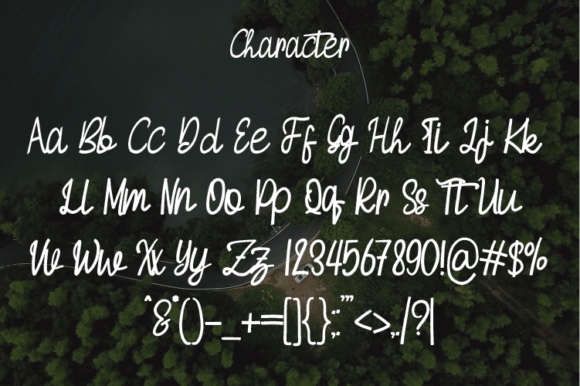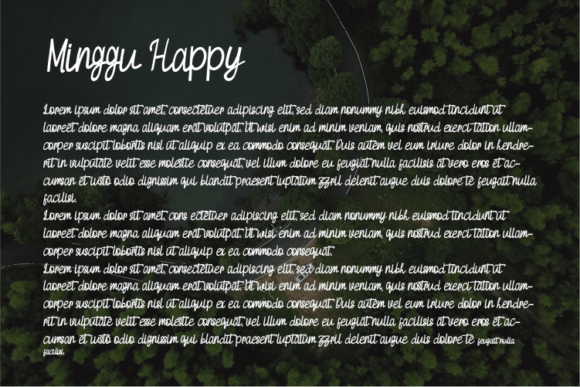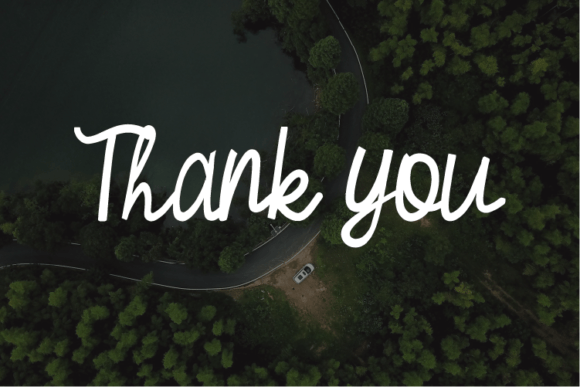
Minggu Happy Font
About Minggu Happy Font
“Minggu Happy is a beautiful handwritten font that effortlessly combines simplicity with a modern aesthetic. Its clean style and contemporary look make it a perfect choice for various design applications, including elegant and luxurious logos, book or movie title designs, fashion brands, magazines, clothing, quotes, and more.
The allure of Minggu Happy lies in its simplicity and modernity. The font’s clean lines and straightforward design contribute to a versatile and timeless appeal, making it suitable for a wide range of creative projects. Whether you’re working on branding, editorial design, or promotional materials, Minggu Happy adds a touch of elegance to your creations.
Consider using Minggu Happy to bring a modern and refined look to your logos or titles. Its versatility allows it to adapt seamlessly to different design needs, providing a fresh and contemporary feel.
In summary, Minggu Happy is not just a font; it’s a design asset that offers a beautiful blend of simplicity and modernity. Whether applied to elegant logos, book titles, or fashion branding, Minggu Happy brings a touch of sophistication to your designs. Explore its versatility and let Minggu Happy enhance the visual appeal of your creative projects.”